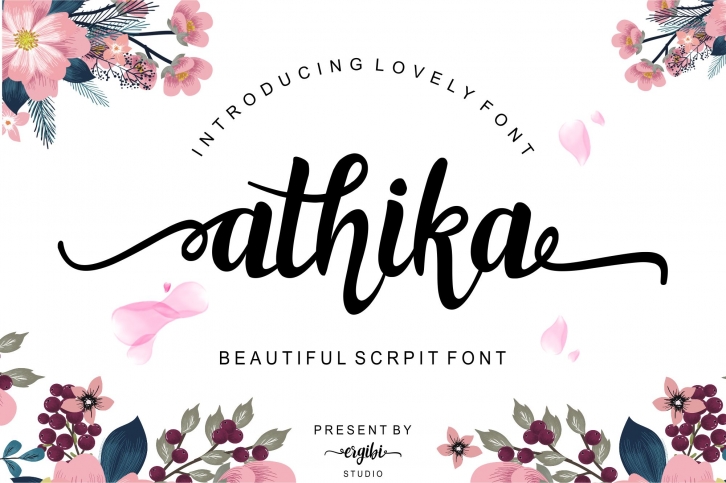
Athika Lovely is a beautiful font that was designed by Ergibi Studio. It's a great choice for designers and creatives who need such a font. It was released on June 16, 2019 and the file size is 6.98 MB. Athika Lovely may give a more youthful, expressive and casual look to your project. It is a very beautiful, refined, elegant, and high-quality font.